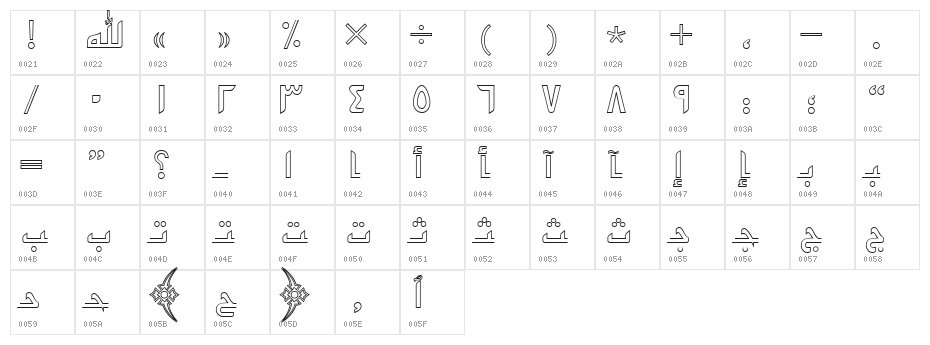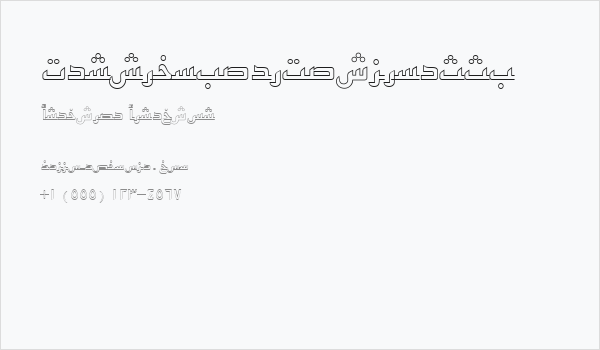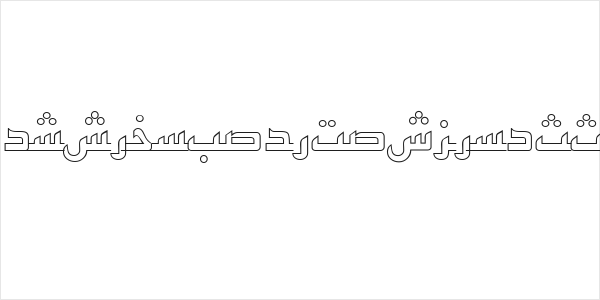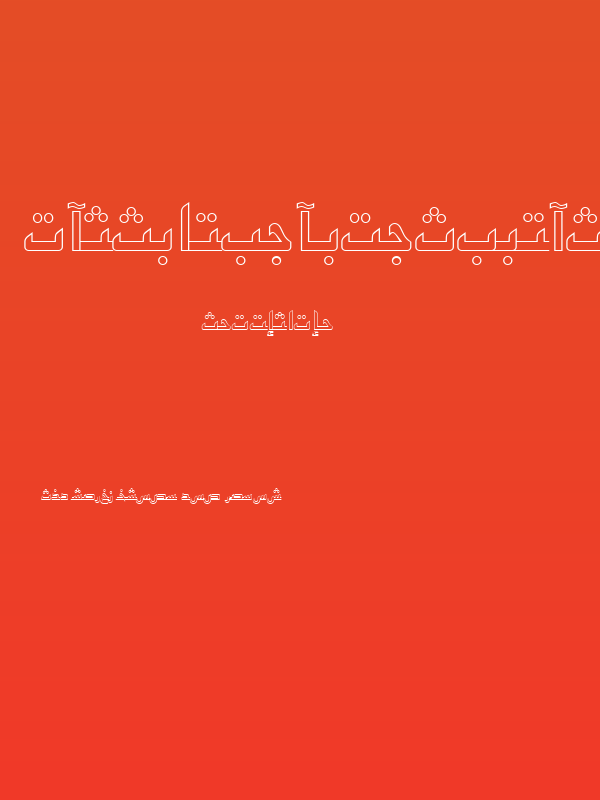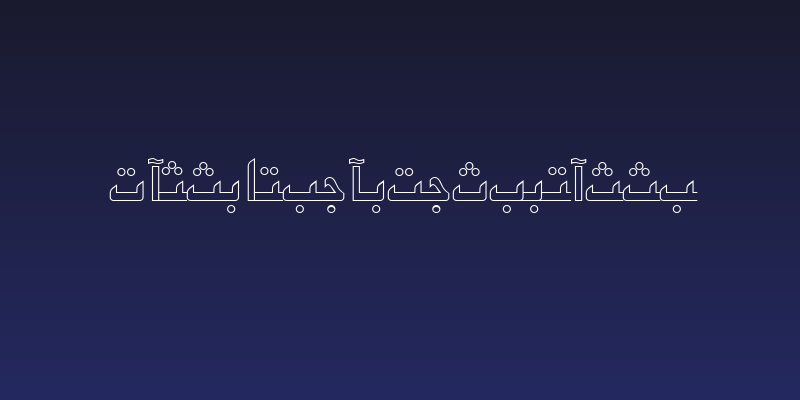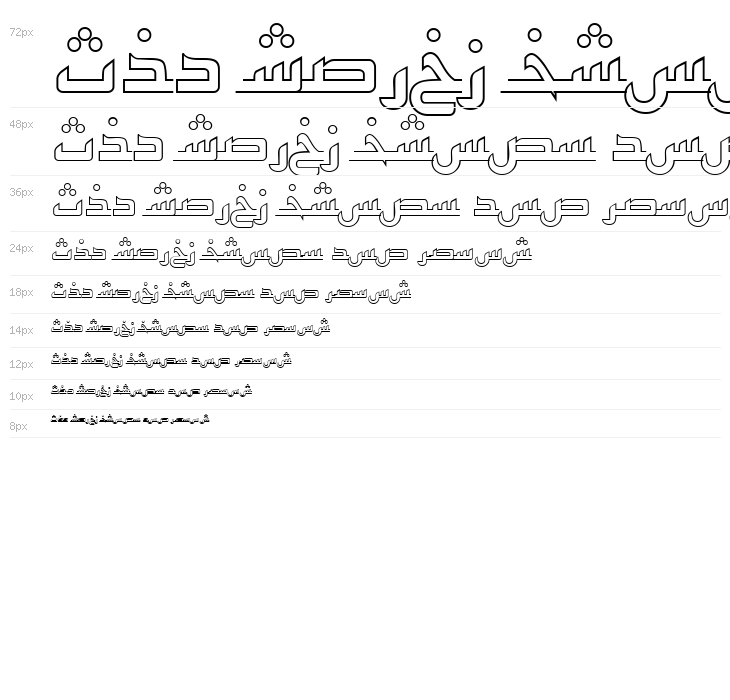
PersianKufiOutlineSSK Font
PersianKufiOutlineSSK Description
This font features a unique outline style that draws inspiration from traditional Persian Kufi script. The characters are bold and geometric, with a distinct angularity that gives them a modern yet historical feel. The outline design adds a layer of intricacy, making each letter appear as a carefully crafted piece of art. The font maintains a consistent stroke width throughout, enhancing its structured appearance. It includes a full set of uppercase and lowercase letters, numerals, and a variety of special characters, making it versatile for different design needs.
| Proposed Projects | Ideal for branding, posters, and cultural event materials where a touch of historical elegance is desired. |